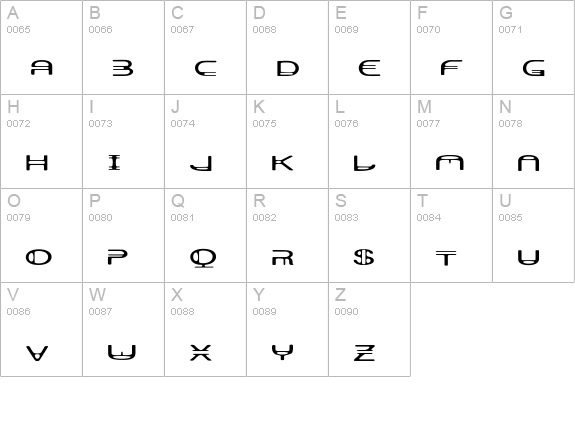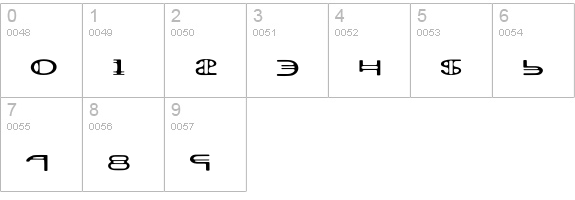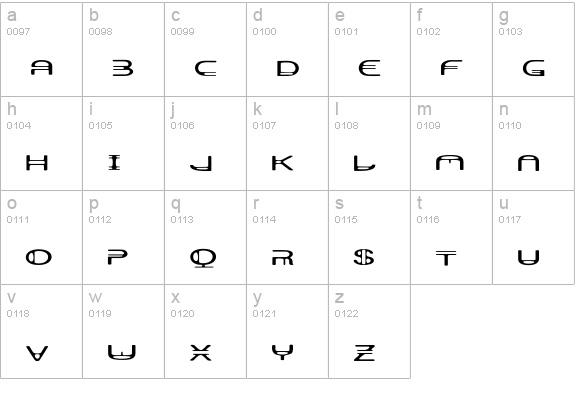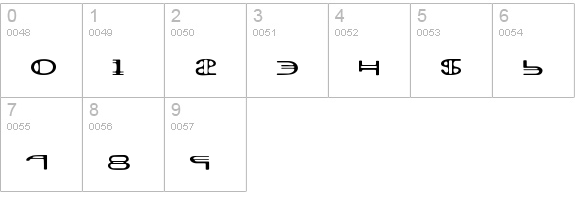
Aerator Font Details
Aerator font is a modern and stylish typeface that exudes elegance and sophistication. With its clean lines and sleek design, Aerator is the perfect choice for projects that require a touch of class. This versatile font is suitable for a wide range of design applications, from branding and advertising to packaging and web design. What sets Aerator font apart is not just its stunning appearance, but also its accessibility. The best part? Aerator is completely free to download at FontsMarket.com. This means you can add this beautiful font to your collection without breaking the bank. Don't miss out on the opportunity to elevate your designs with Aerator font – download it today and see the difference it makes!